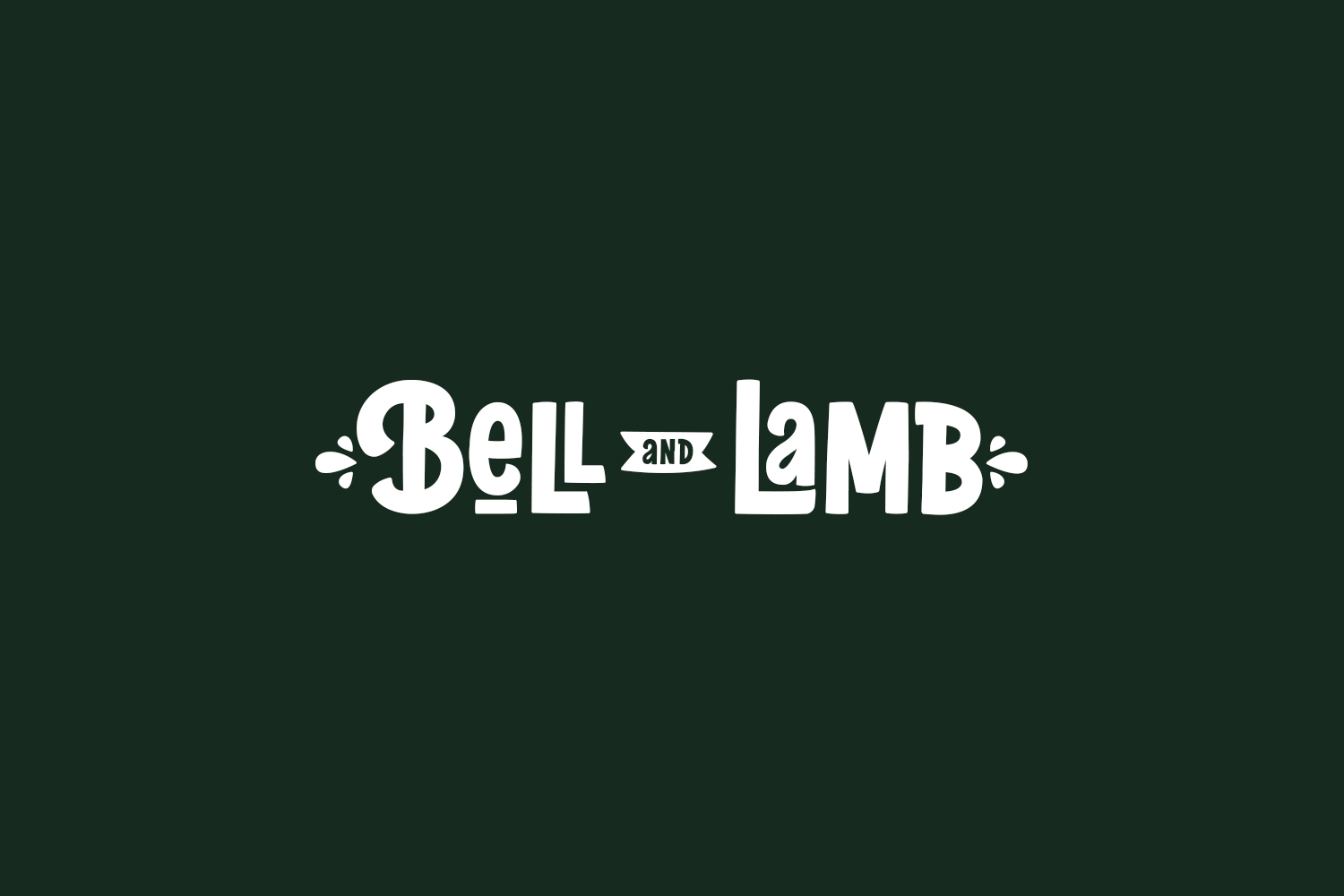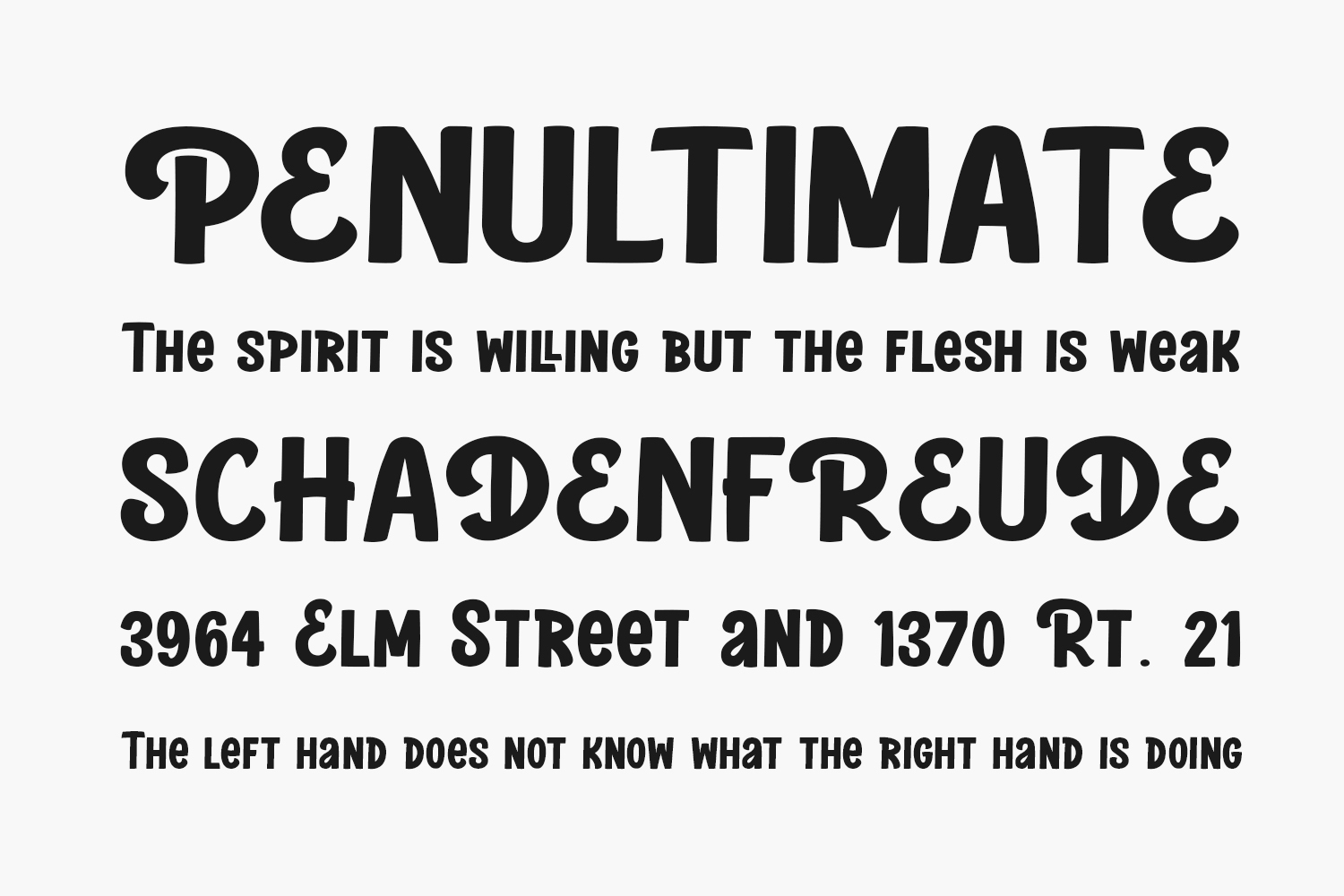
Bell and Lamb Free Font is a neat and vintage-styled display font. This cool font is perfect for logos, name tags, advertising, product packaging, clothing, social media, and greeting cards. Bell and Lamb is PUA encoded, which means you can access all of the glyphs and swashes with ease. Bell and Lamb Free Font was designed by Typhoon Type and is free for personal use only. Please purchase the full version for commercial use.